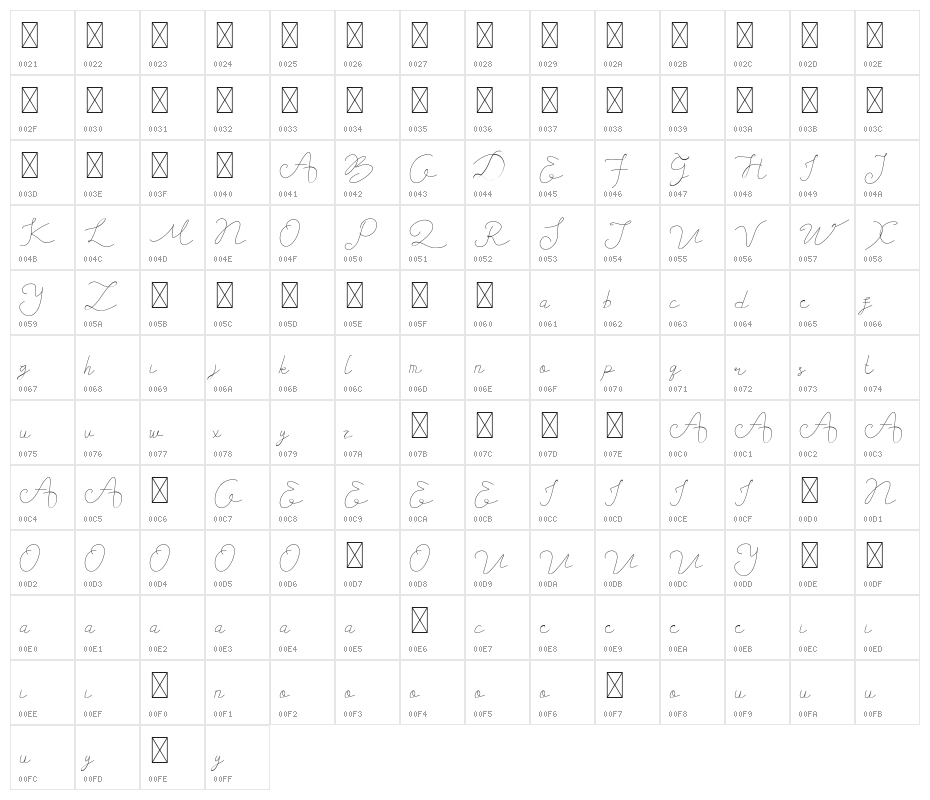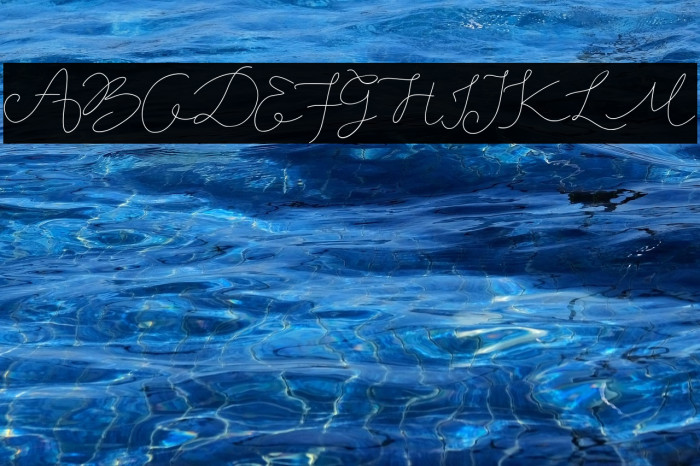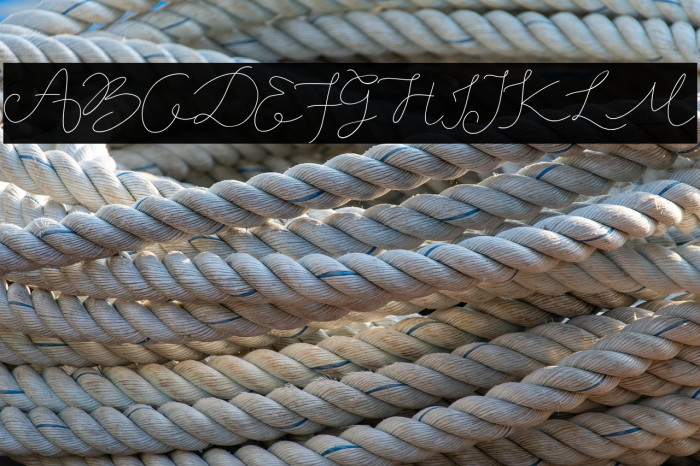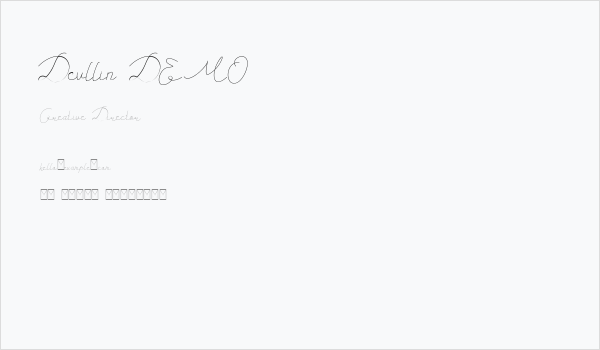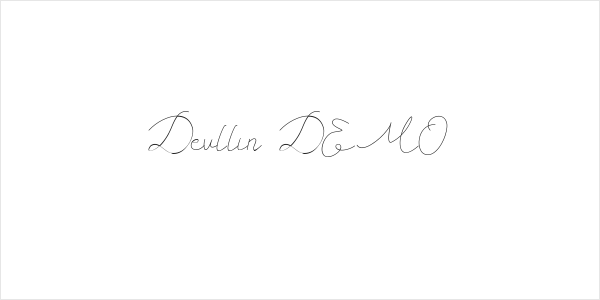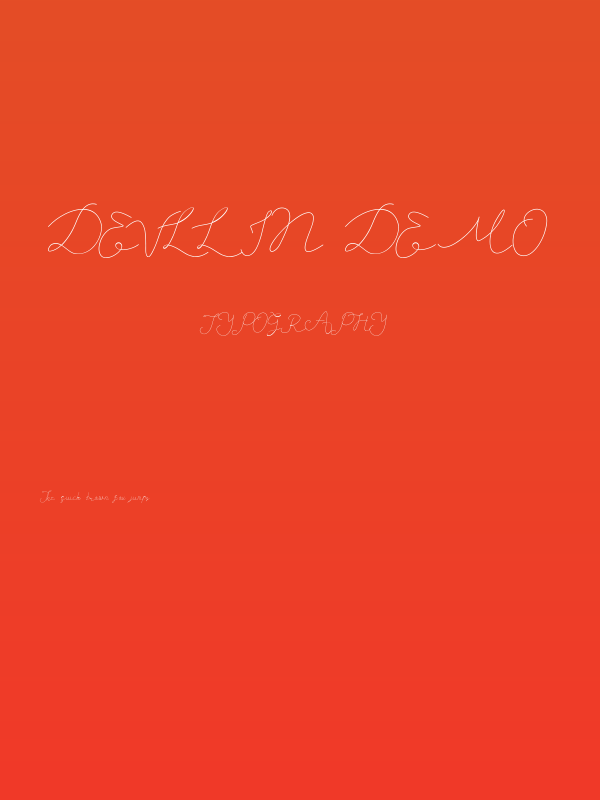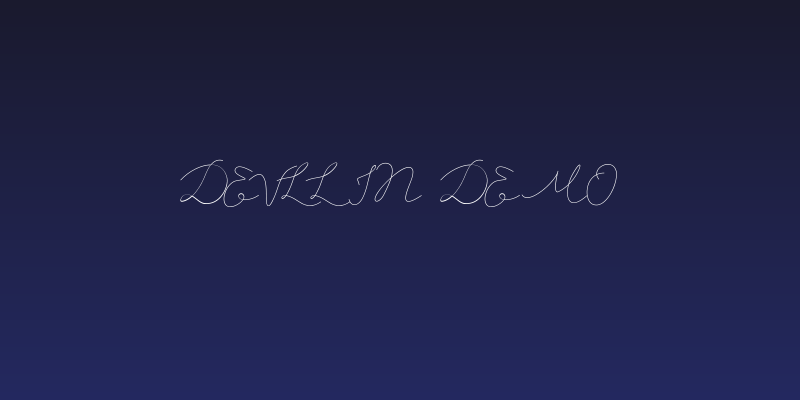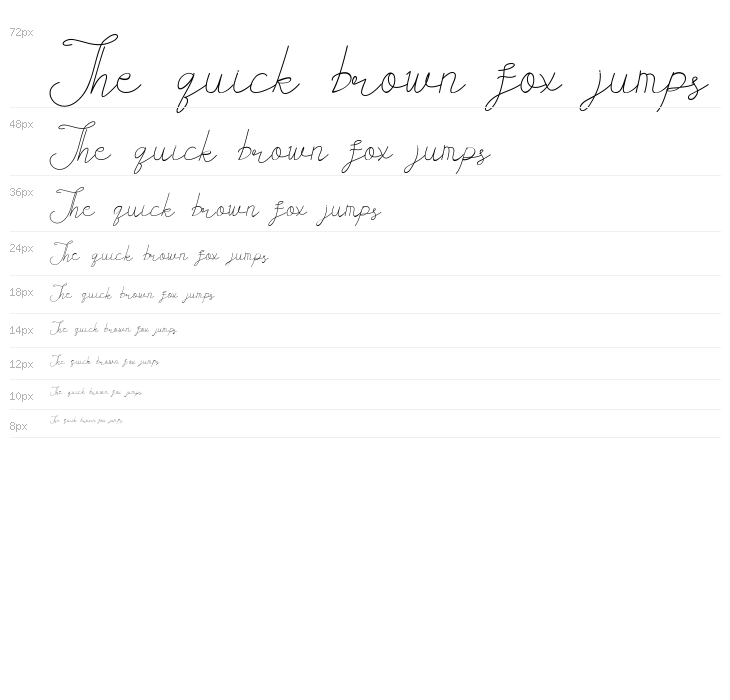
Devllin DEMO Font
Devllin DEMO Description
This font features an elegant, flowing script style that mimics the fluidity of natural handwriting. The uppercase letters are characterized by their graceful loops and curves, creating a sense of movement and sophistication. The lowercase letters maintain this fluidity, with a slightly more compact form that ensures readability. The overall design is delicate, with thin strokes that give it a light and airy feel. The font's style is reminiscent of traditional calligraphy, yet it maintains a modern touch, making it versatile for various design applications.
Proposed ProjectsIdeal for wedding invitations, elegant branding, personal stationery, and artistic projects requiring a touch of sophistication.